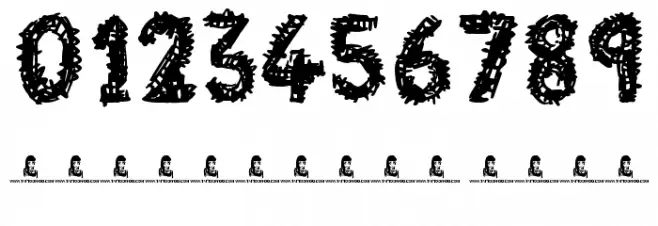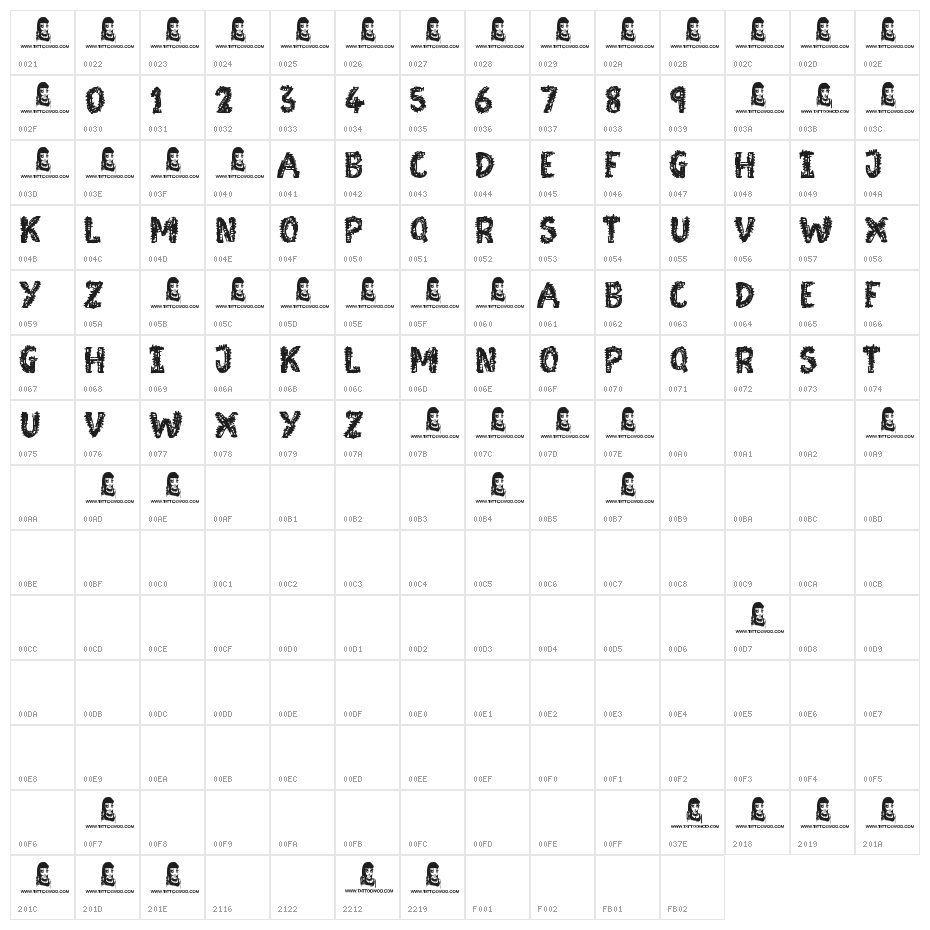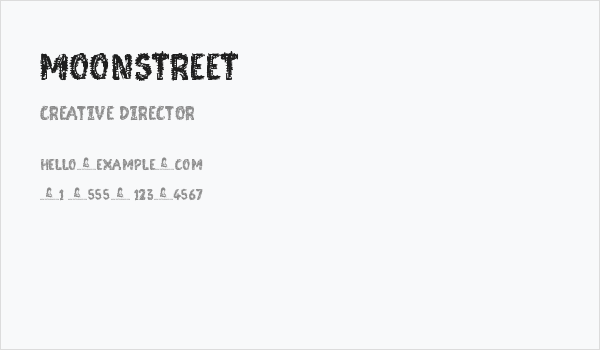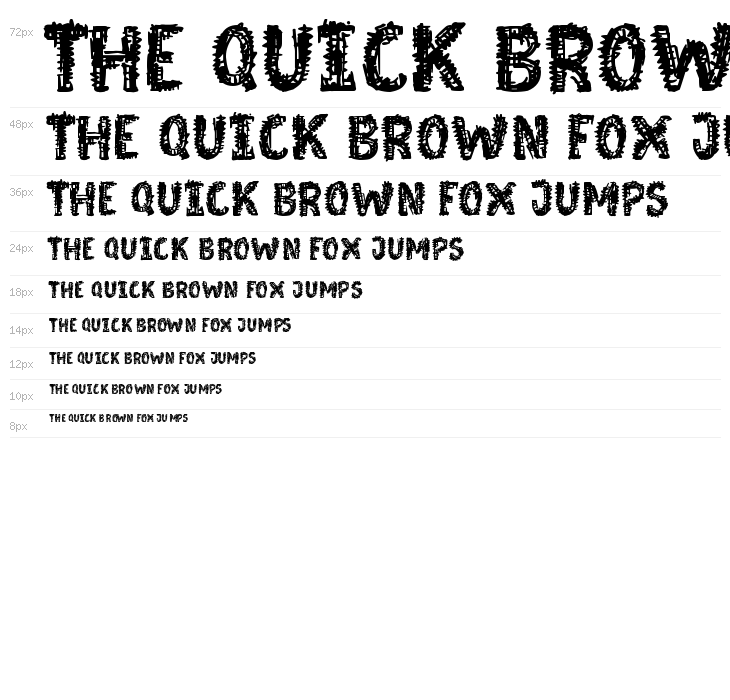
Moonstreet Font
Moonstreet Description
This font features a bold, decorative style with a playful and chaotic appearance. Each character is filled with irregular, jagged lines that create a textured, almost hand-drawn effect. The uppercase and lowercase letters maintain a consistent height, while the numbers and special characters follow the same design principle, ensuring uniformity across all elements. The font's unique style makes it stand out, offering a sense of movement and energy. Its distinctive look is ideal for projects that require a bold statement or a creative touch.